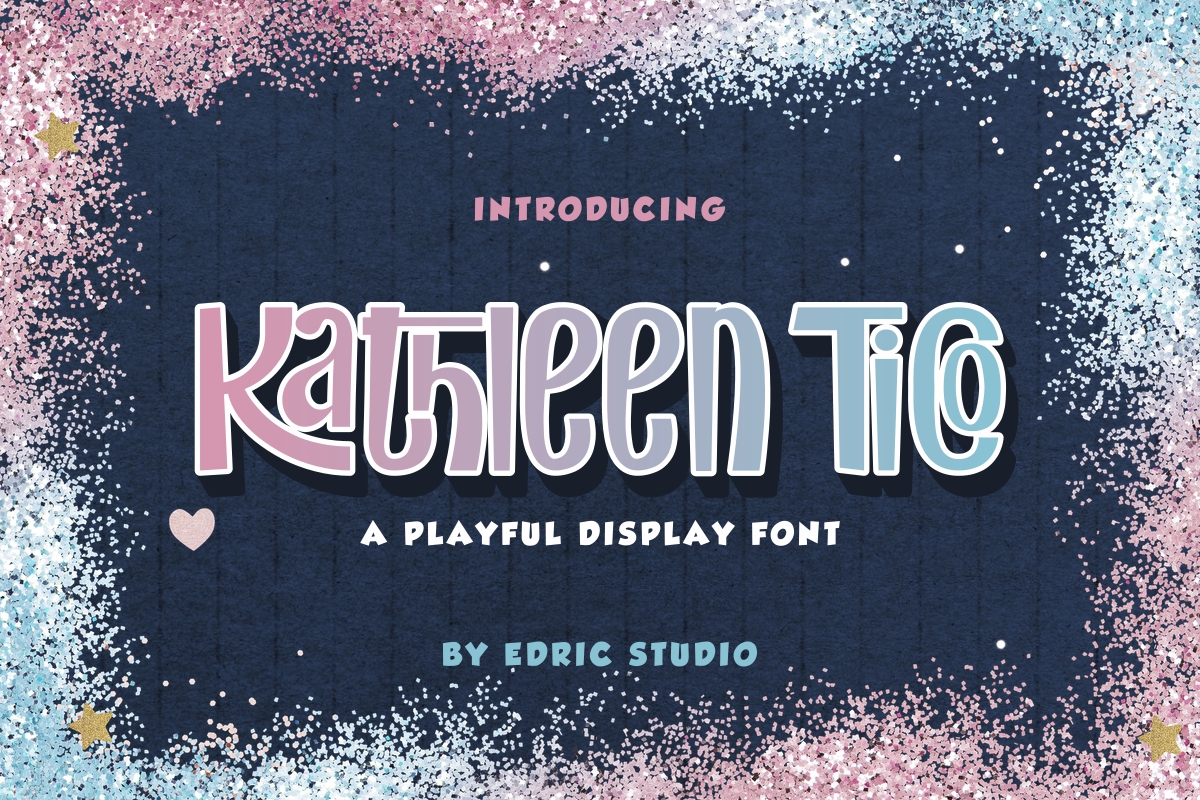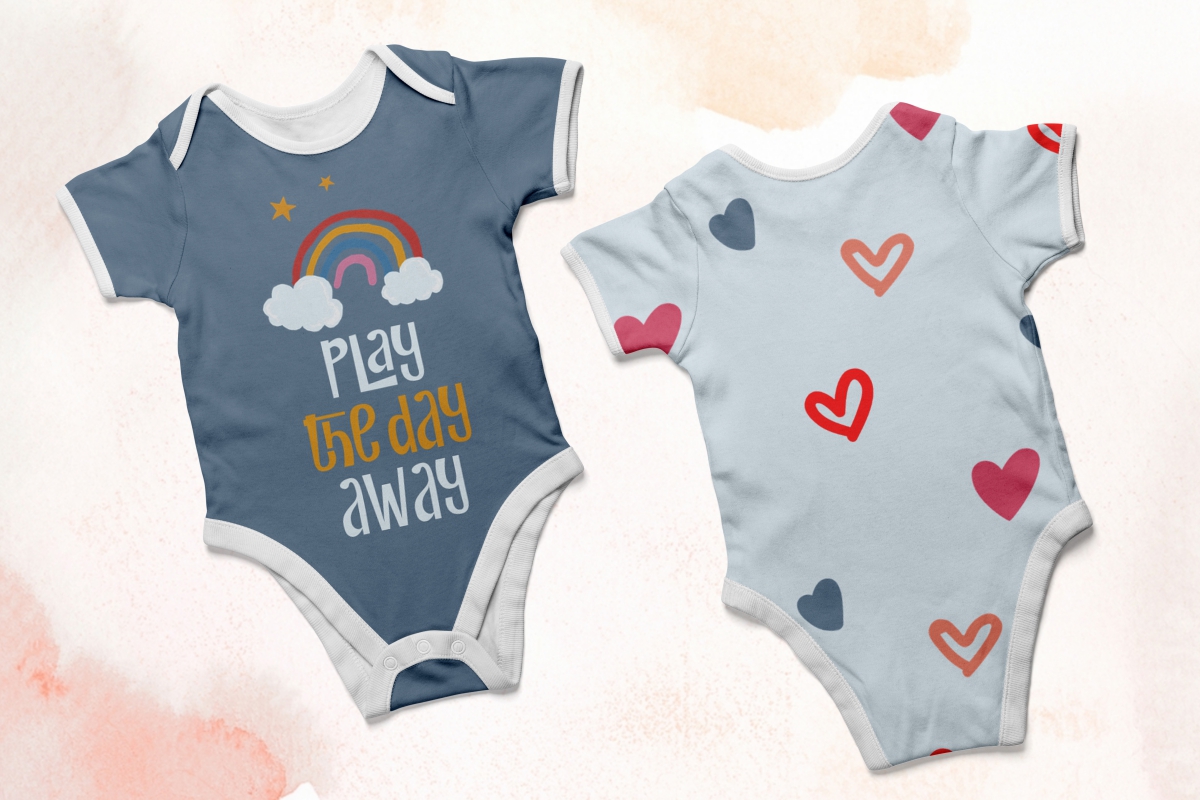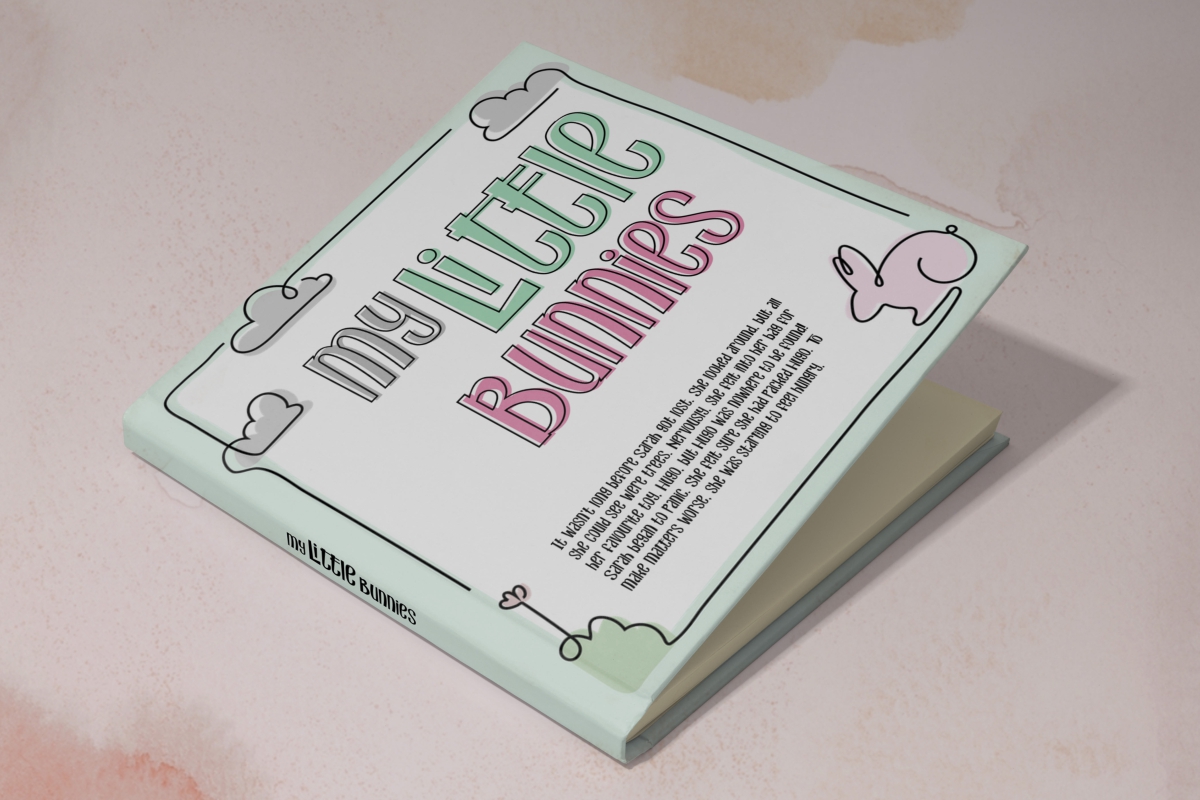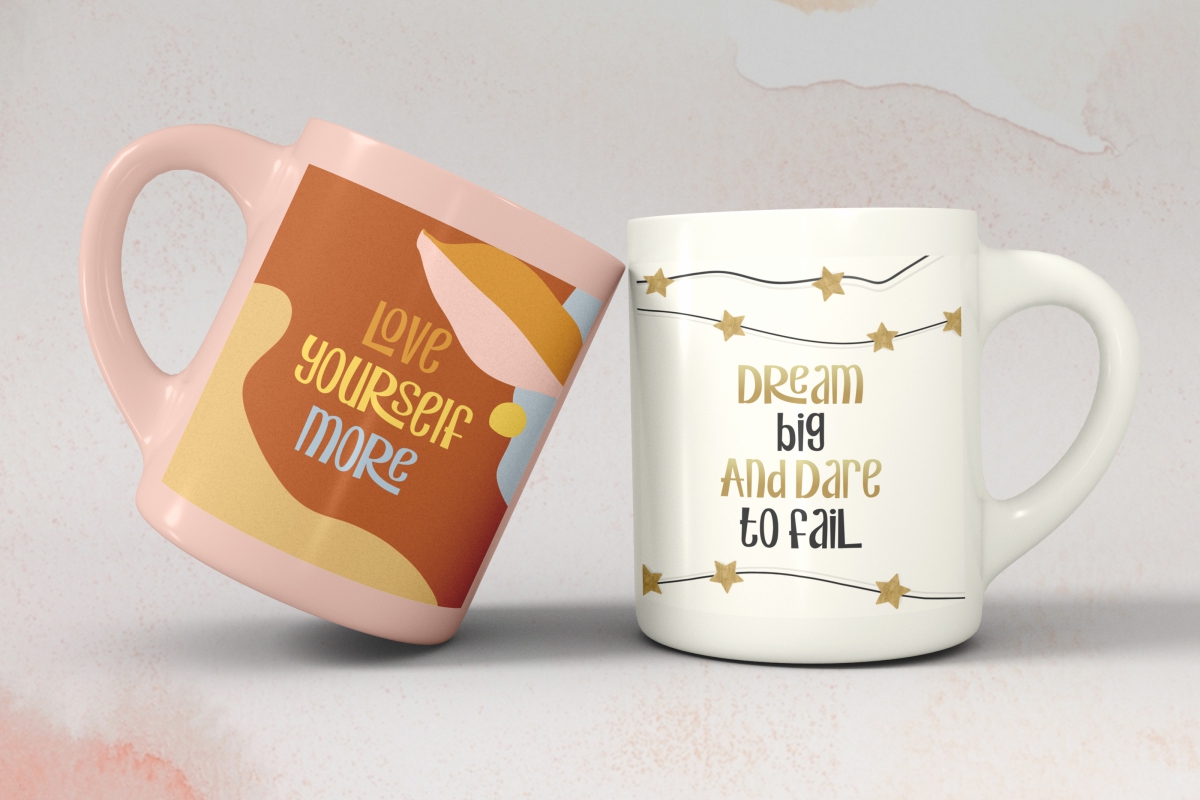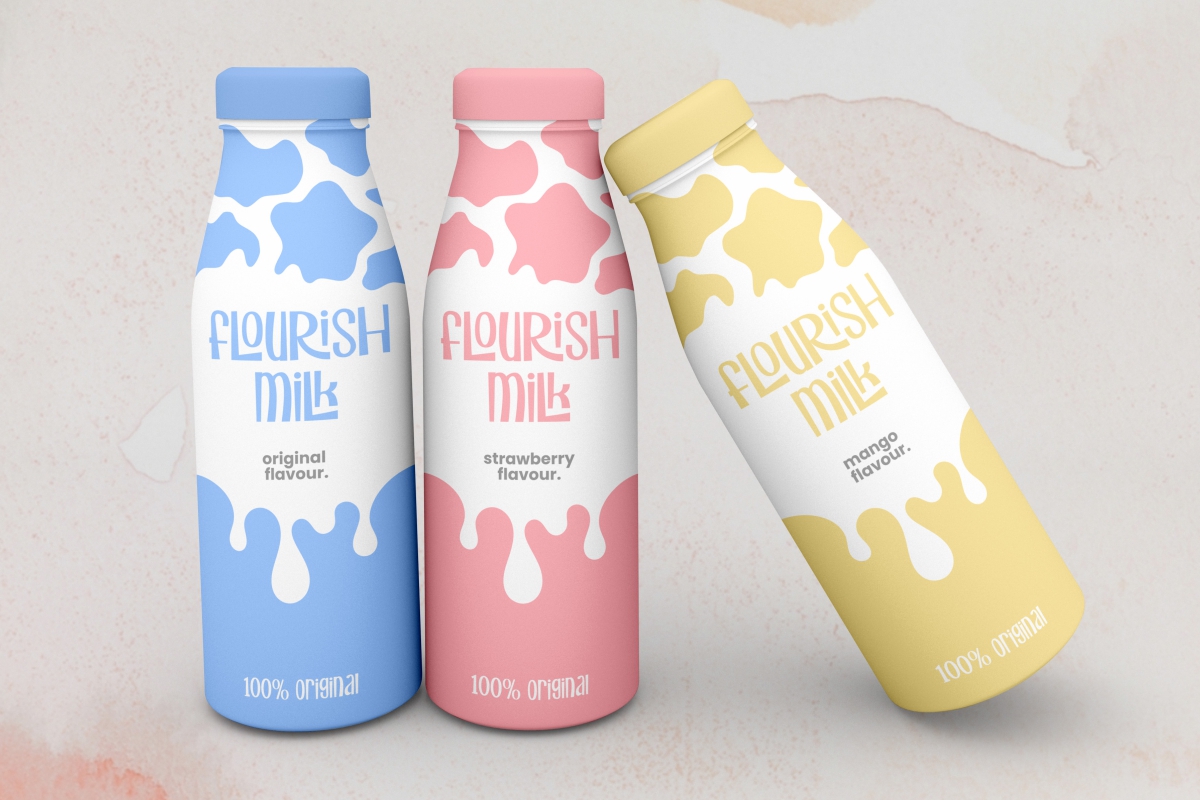
Kathleen Tico Font
Kathleen Tico Display Font
This is a modern and playful display font that will bring joyful to your designs. This font is chic and cute making it perfect for kids themed designs, mug design creations, snack industry, word art on frame and many other things.